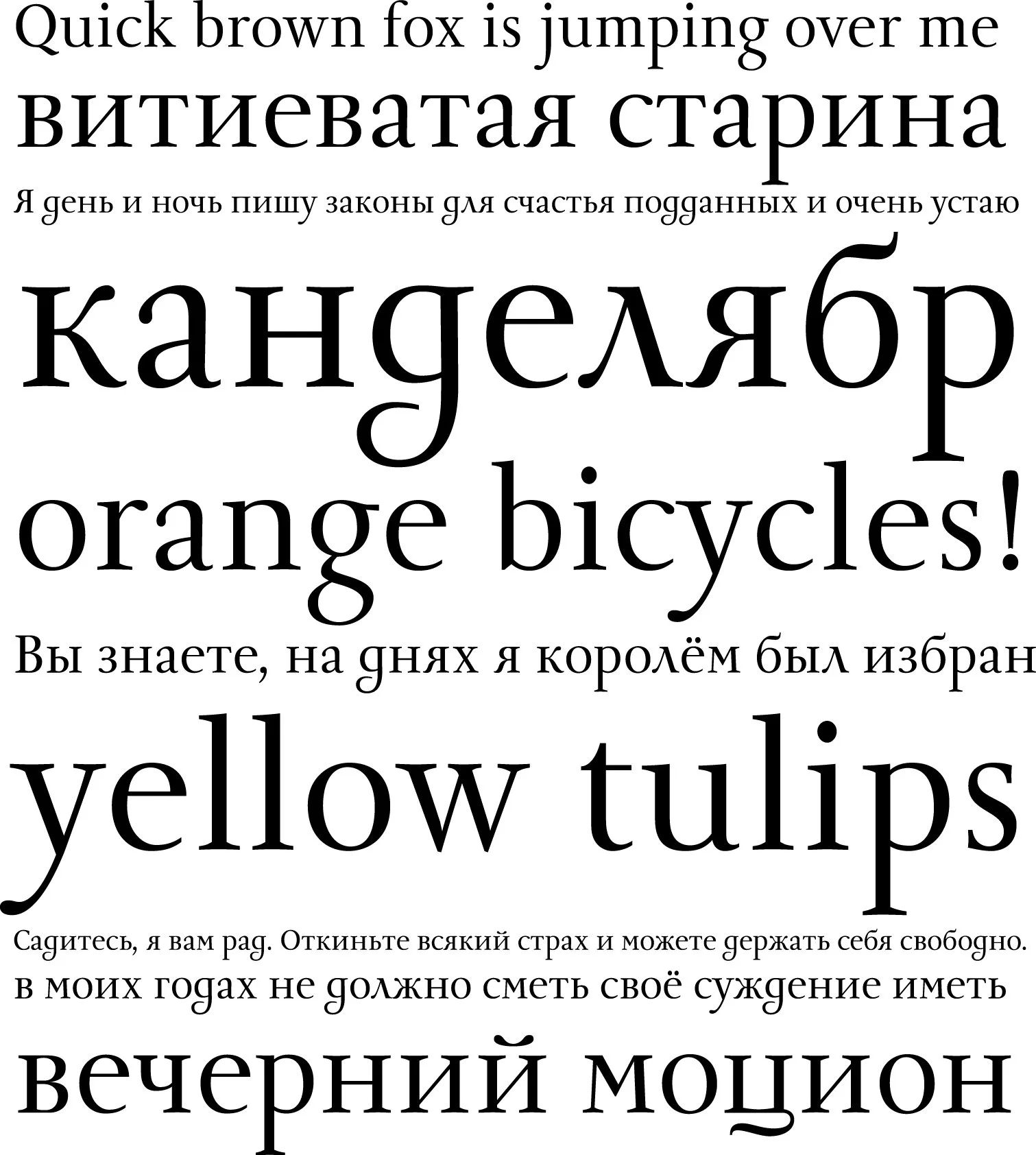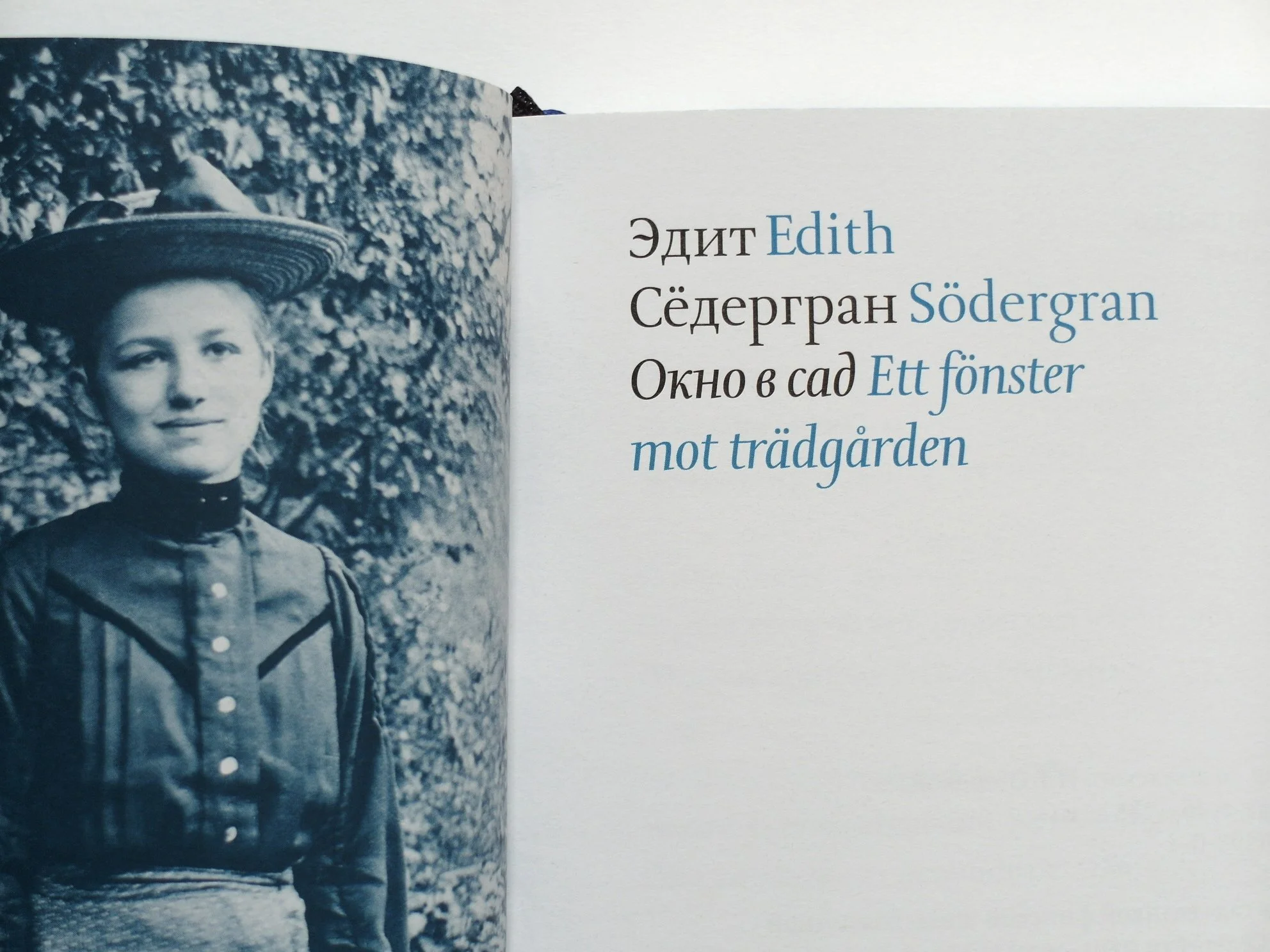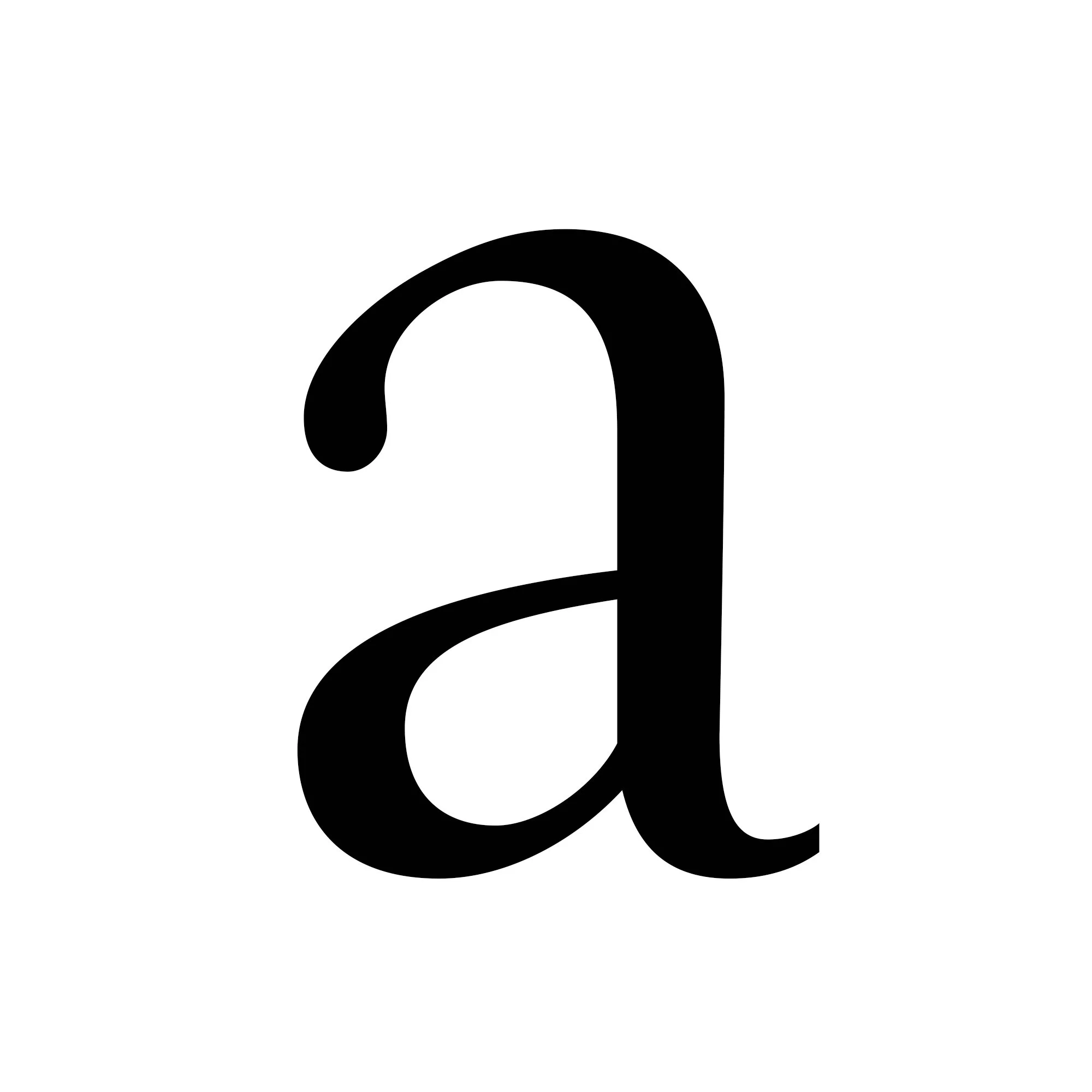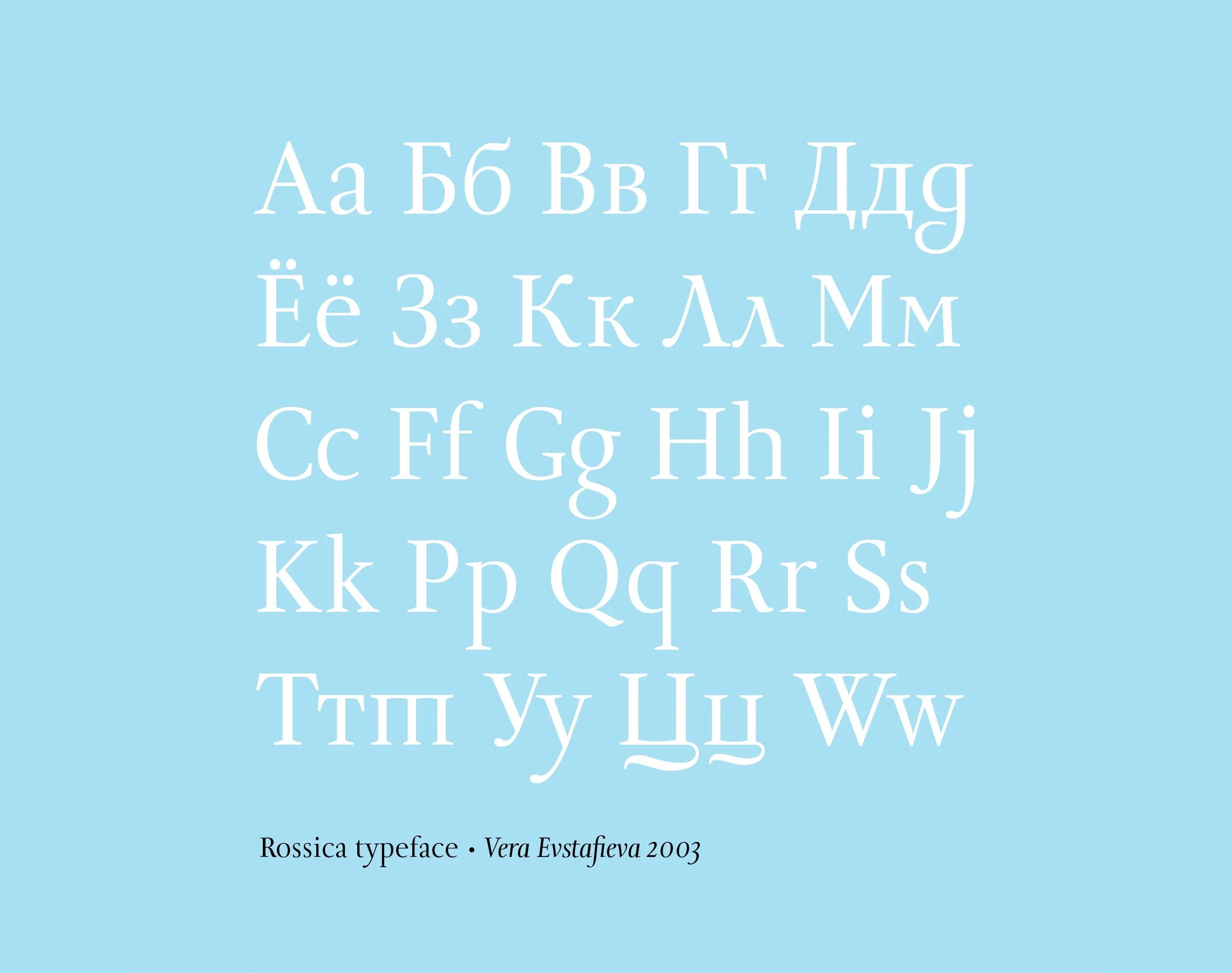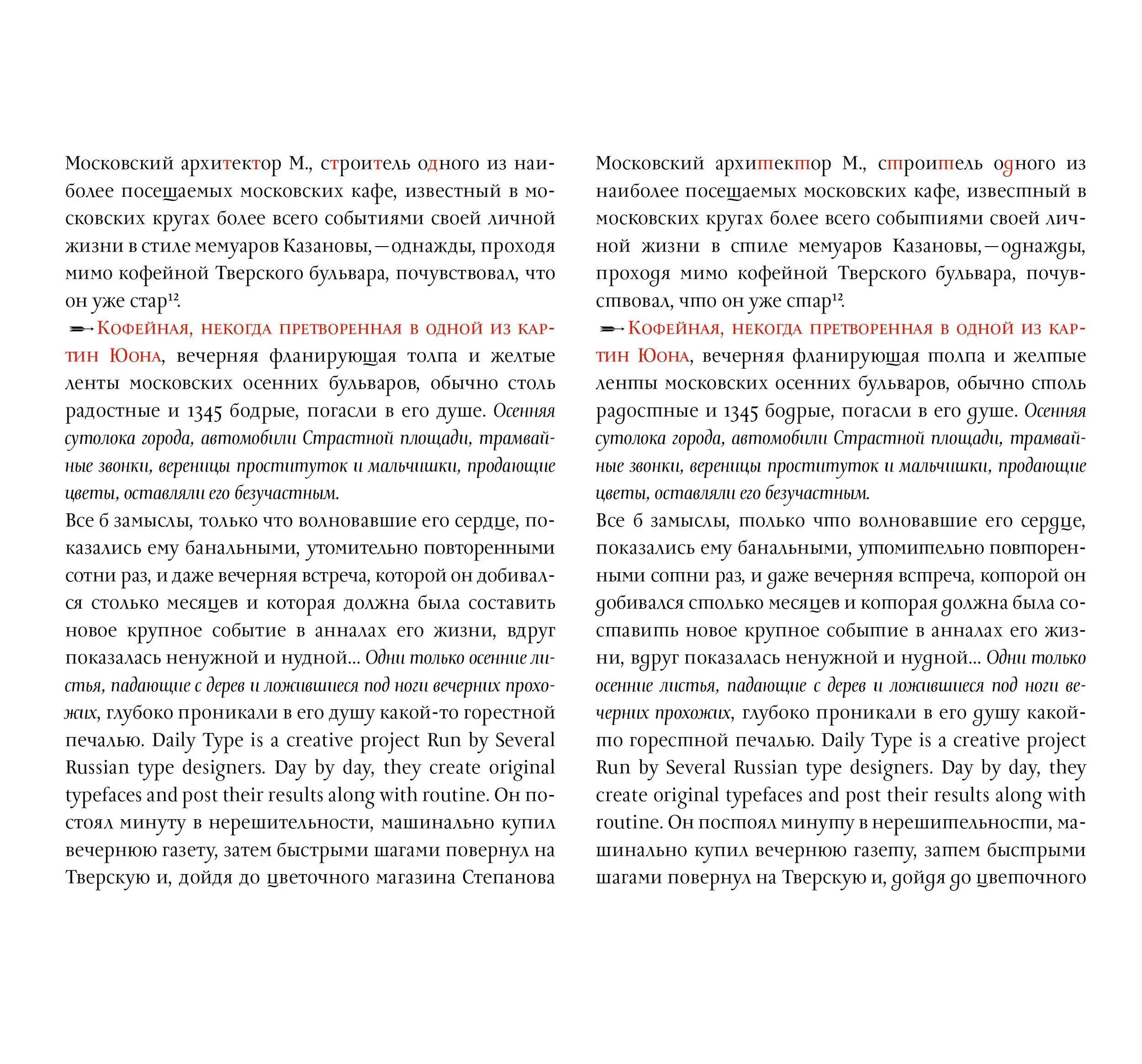
Rossica, 2003
Rossica typeface was designed by Vera Evstafieva on the basis of Russian typefaces of 18 century which followed tzar Peter the Great’s reform of Russian alphabet and type. Rossica is the text typeface and has alternates for some Cyrillic letters to control the strength of historical flavour.
Rossica is elegant and subtle, it is often used for art albums designs, history books and fine art exhibition design.